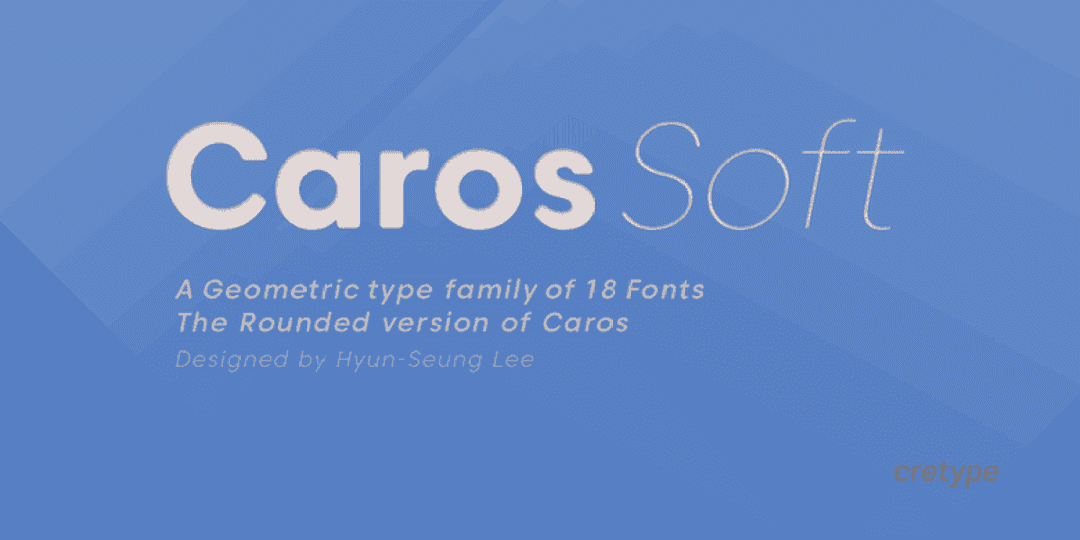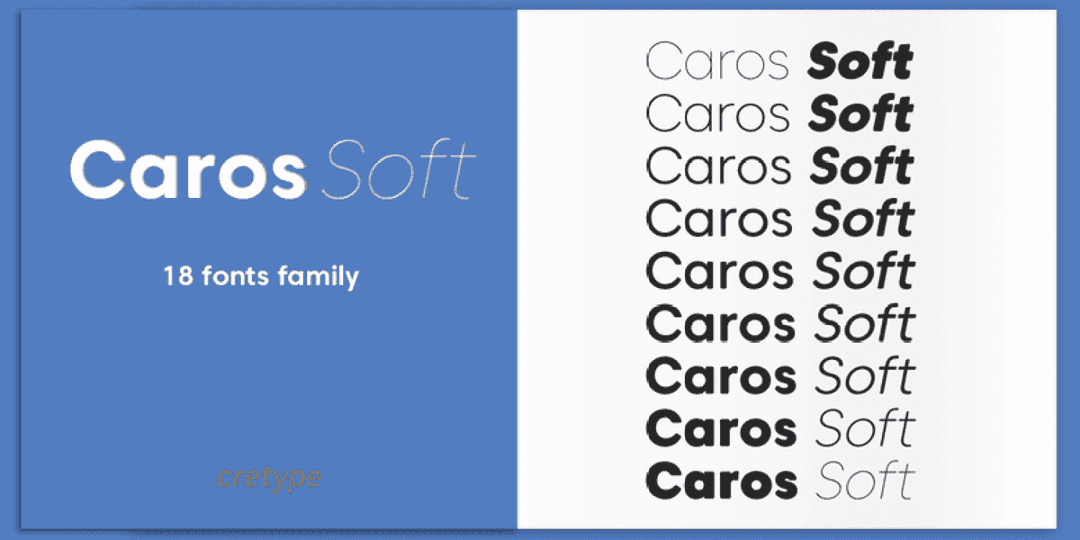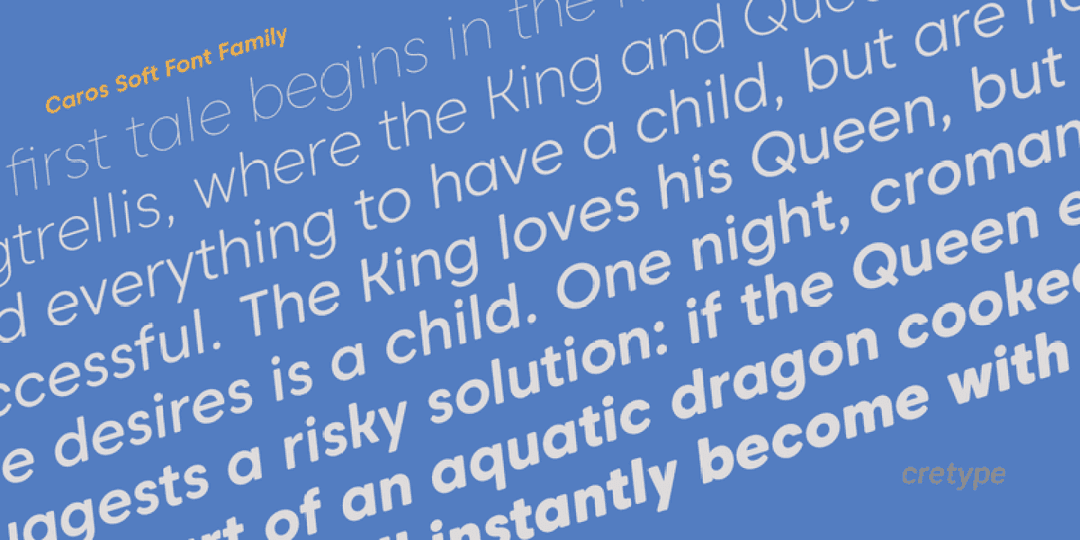
Caros Soft is the rounded version of Caros. Using geometric shapes to craft letters without visual distractions and precise adjustments between letters for maximum font performance.